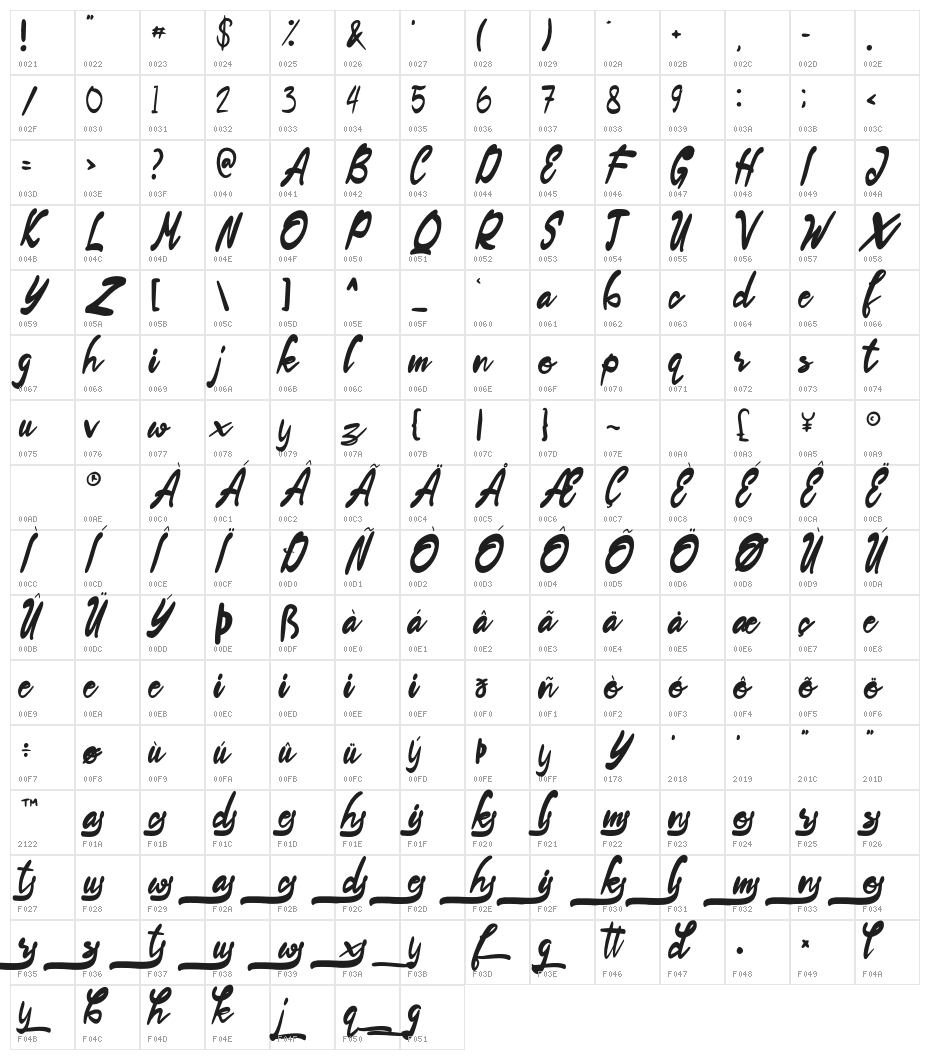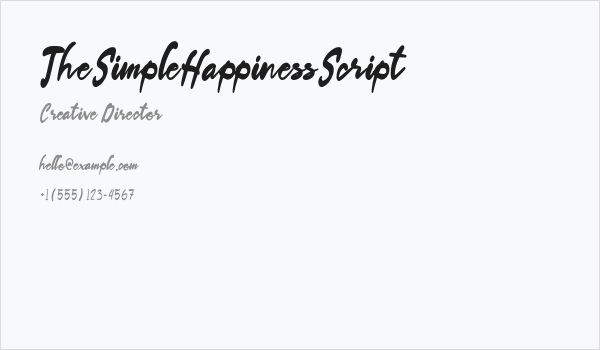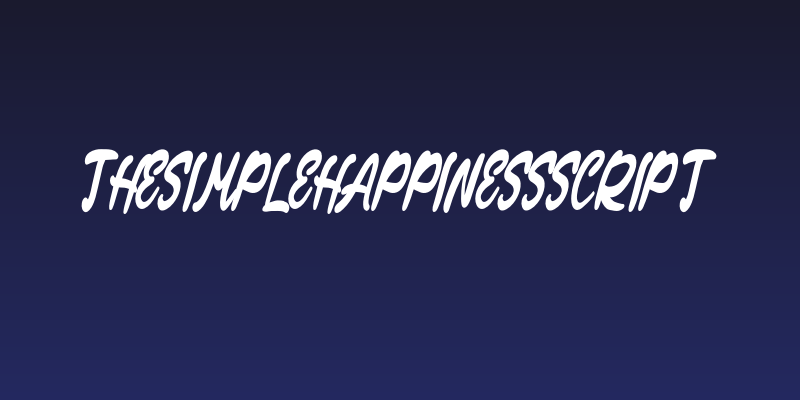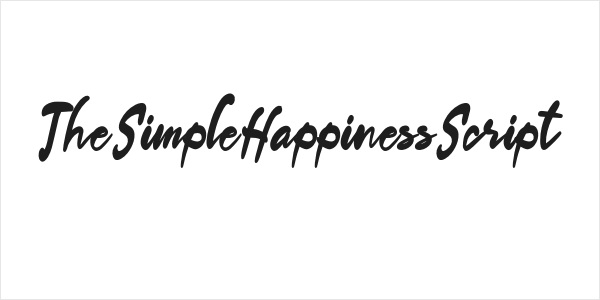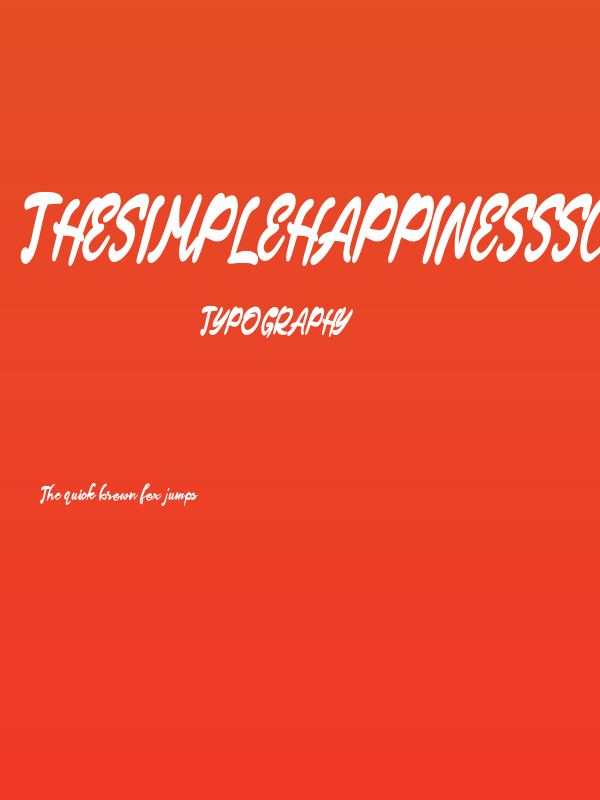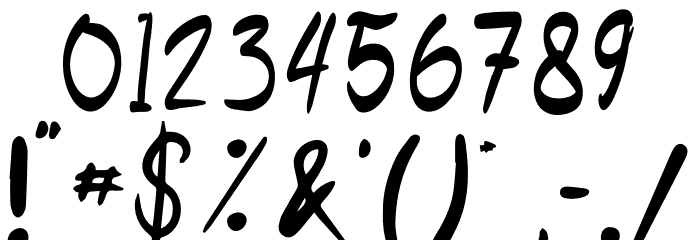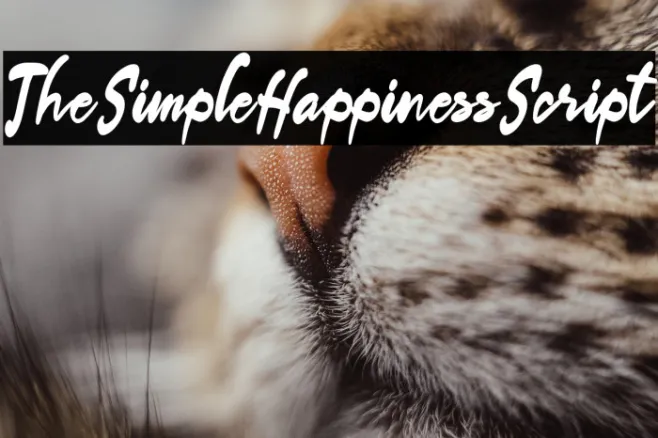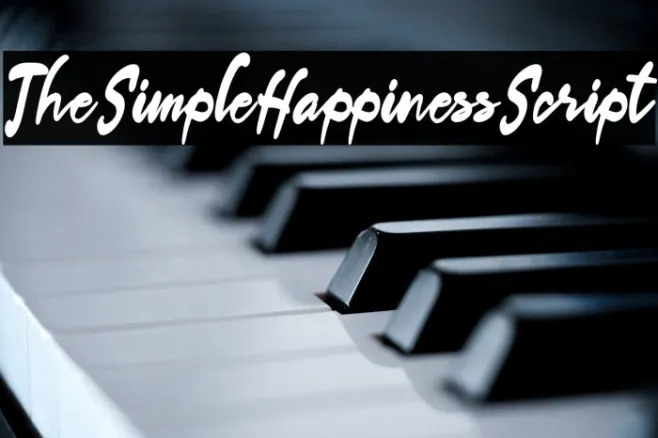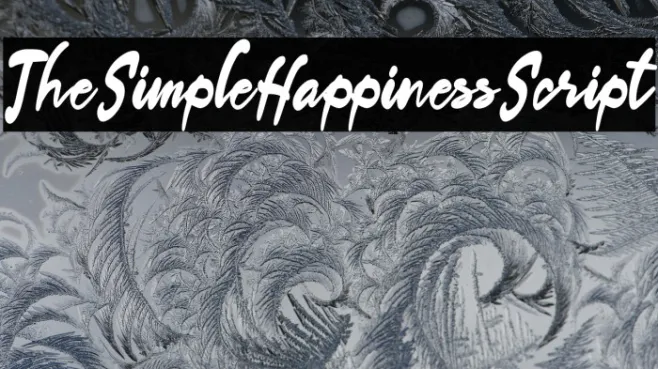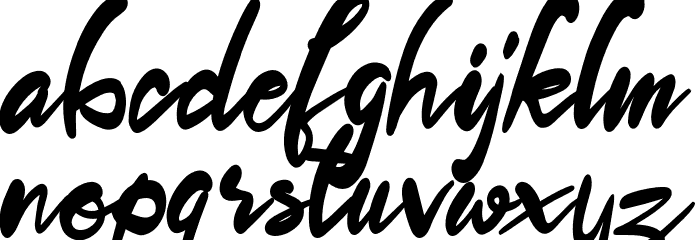
TheSimpleHappinessScript Font
TheSimpleHappinessScript Description
This font exudes a lively and energetic vibe with its bold, flowing script style. The characters are crafted with a smooth, continuous stroke that mimics the fluidity of handwriting, giving it a personal and authentic touch. The uppercase letters are slightly more structured, while the lowercase letters maintain a casual, freeform appearance. The numerals and special characters are consistent with the overall style, ensuring a cohesive look across all text. This font's playful yet elegant design makes it versatile for various creative applications.